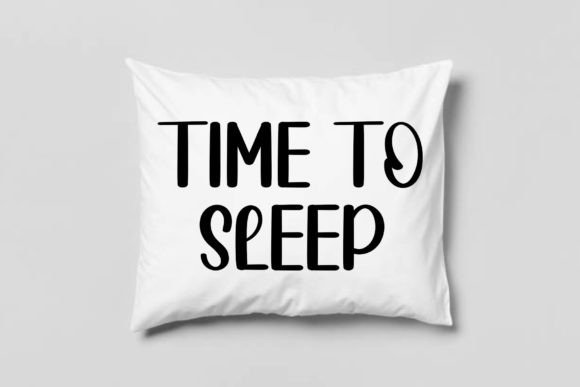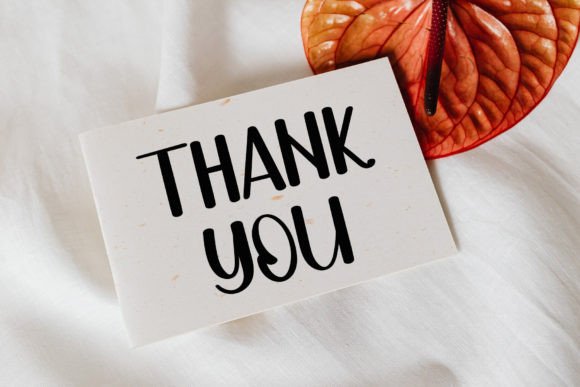
Introduction to September Vacation Font
As you’re scrolling through your Instagram feed, have you ever stumbled upon a beautifully crafted post that makes you want to create something just as stunning? For designers, finding the perfect font can be the key to unlocking a truly creative project. And that’s exactly what the September Vacation Font offers – a unique blend of elegance and playfulness that can elevate any design.
With its high-quality design and versatility, the September Vacation Font is an invaluable resource for designers and creatives alike. Whether you’re working on a DIY project or crafting a social media post, this font is sure to add a touch of sophistication and charm. And the best part? It’s available for free download with a transparent background, making it easy to incorporate into your design.
So why settle for a generic font when you can add some personality to your work with the September Vacation Font? In this article, we’ll dive deeper into the world of this amazing font and explore its many uses and benefits.
Key Features of September Vacation Font
- High-quality design resource ideal for creative projects, with a unique and playful aesthetic.
- Features a clean and modern design, with a clear and legible font style.
- Perfect for use in various design projects, including digital and print materials, such as posters, flyers, and social media graphics.
Honest Review: September Vacation Font
As a designer, I’m always on the lookout for high-quality fonts that can elevate my creative projects. I recently came across the September Vacation Font, and I must say it’s been a great addition to my design resource library.
What works well about this font is its playful and carefree vibe, perfect for projects that require a laid-back atmosphere. The September Vacation Font has a unique, handwritten feel that’s hard to find in other fonts. It’s also a free download, which is always a plus!
The font includes a range of styles and weights, making it versatile for use in various design contexts. I particularly love the transparent background option, which allows for seamless integration with other design elements.
- Playful and carefree vibe
- Unique, handwritten feel
One limitation of the September Vacation Font is that it may not be suitable for formal or professional projects. The font’s casual nature may not convey the level of sophistication required for such designs.
Overall, I’m impressed with the September Vacation Font and would recommend it to designers looking for a fun and creative solution for their projects.
Tips for Getting the Most Out of September Vacation Font
To get the most out of the September Vacation Font, use it in combination with other design elements to create a cohesive look. Experiment with different font sizes, colors, and styles to add visual interest to your design. You can also use the font to create a consistent brand identity across your marketing materials.
Common Use Cases for September Vacation Font
The September Vacation Font is ideal for use in a variety of design projects, including social media graphics, blog posts, and marketing materials. It’s also a great choice for creating a consistent brand identity across your website, email newsletters, and other digital channels.